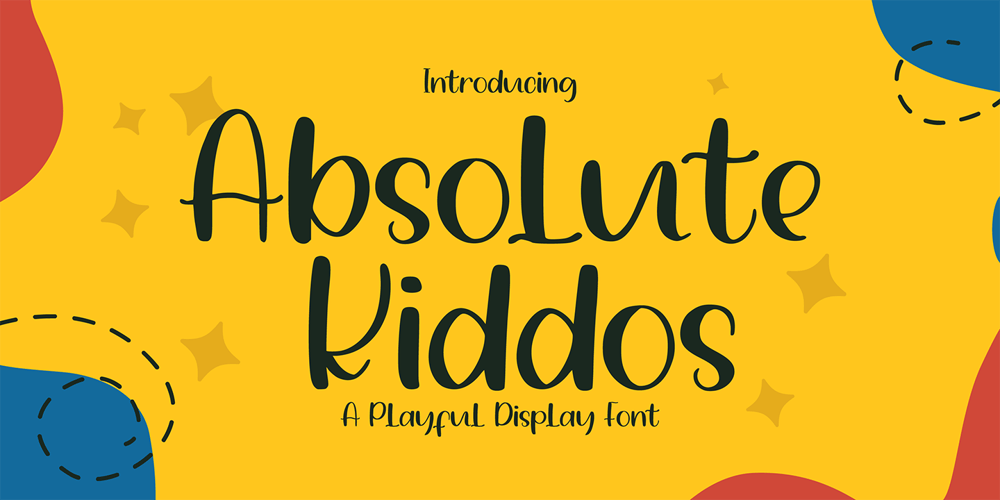
Absolute Kiddos Font Family was designed by Yahdi Kumala and published by Krakenbox Studio. Absolute Kiddos contains 1 styles and family package options. Absolute Kiddos is a cute and playful display font. Use this font to add that special cool touch to any design idea you can think of! It is perfect for any branding project such as logos, t-shirt printing, creative products, and more